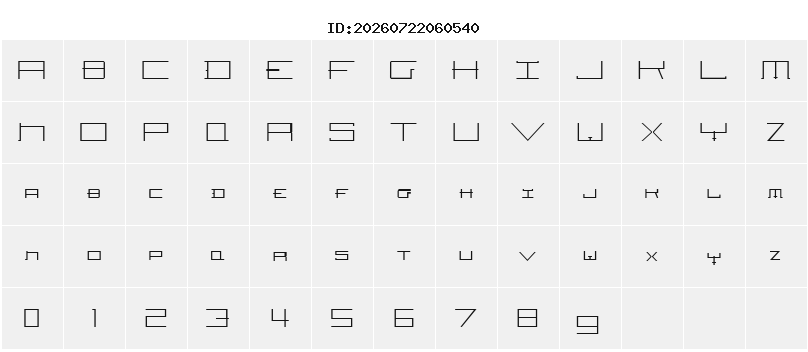
• Font Name: Hozenozzle New
• Full Font Name: Hozenozzle New
About Hozenozzle New.ttf
Hozenozzle New.ttf is a modern, elegant sans-serif font designed for ultimate readability and visual harmony. Perfect for branding, headlines, web design, and print materials.